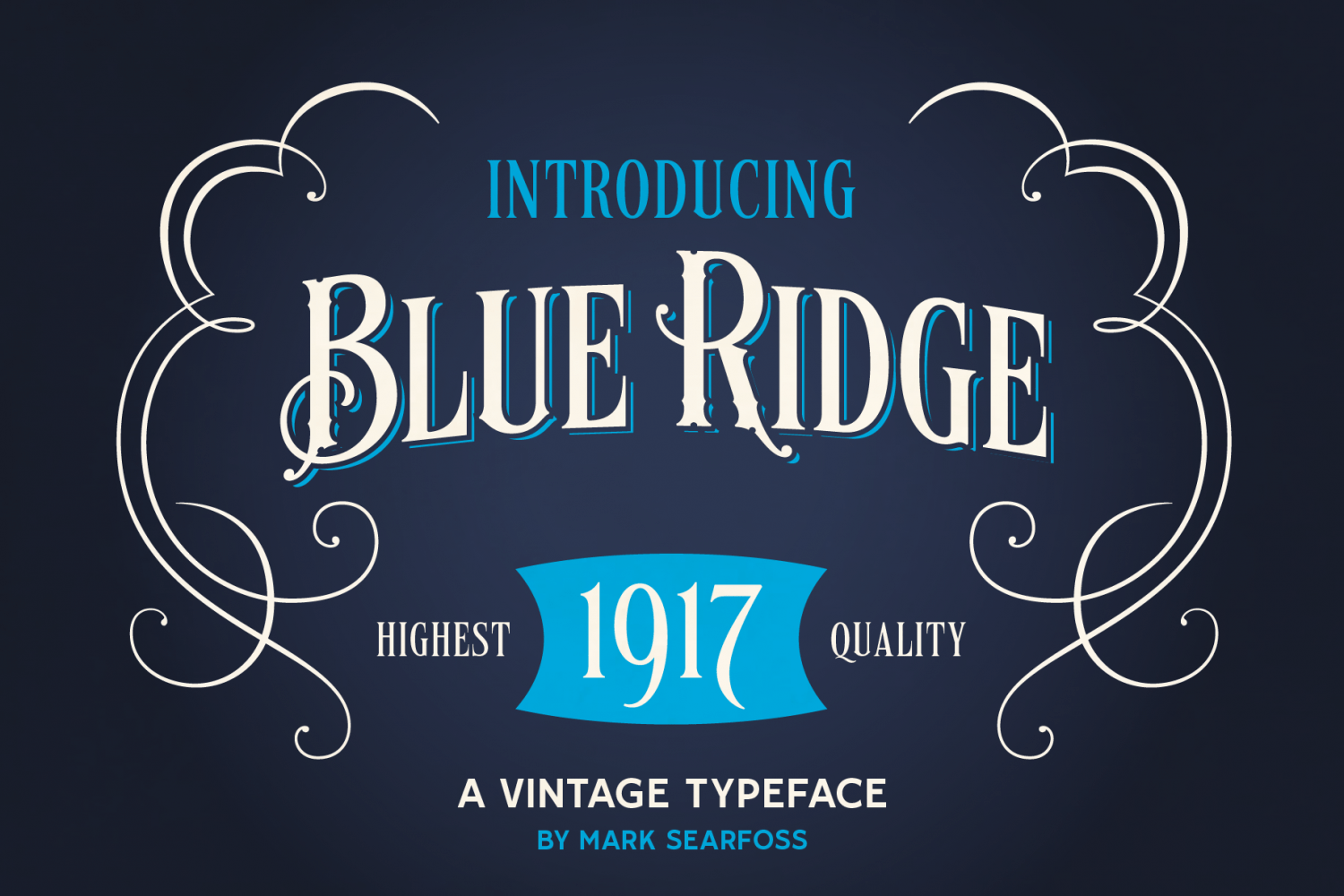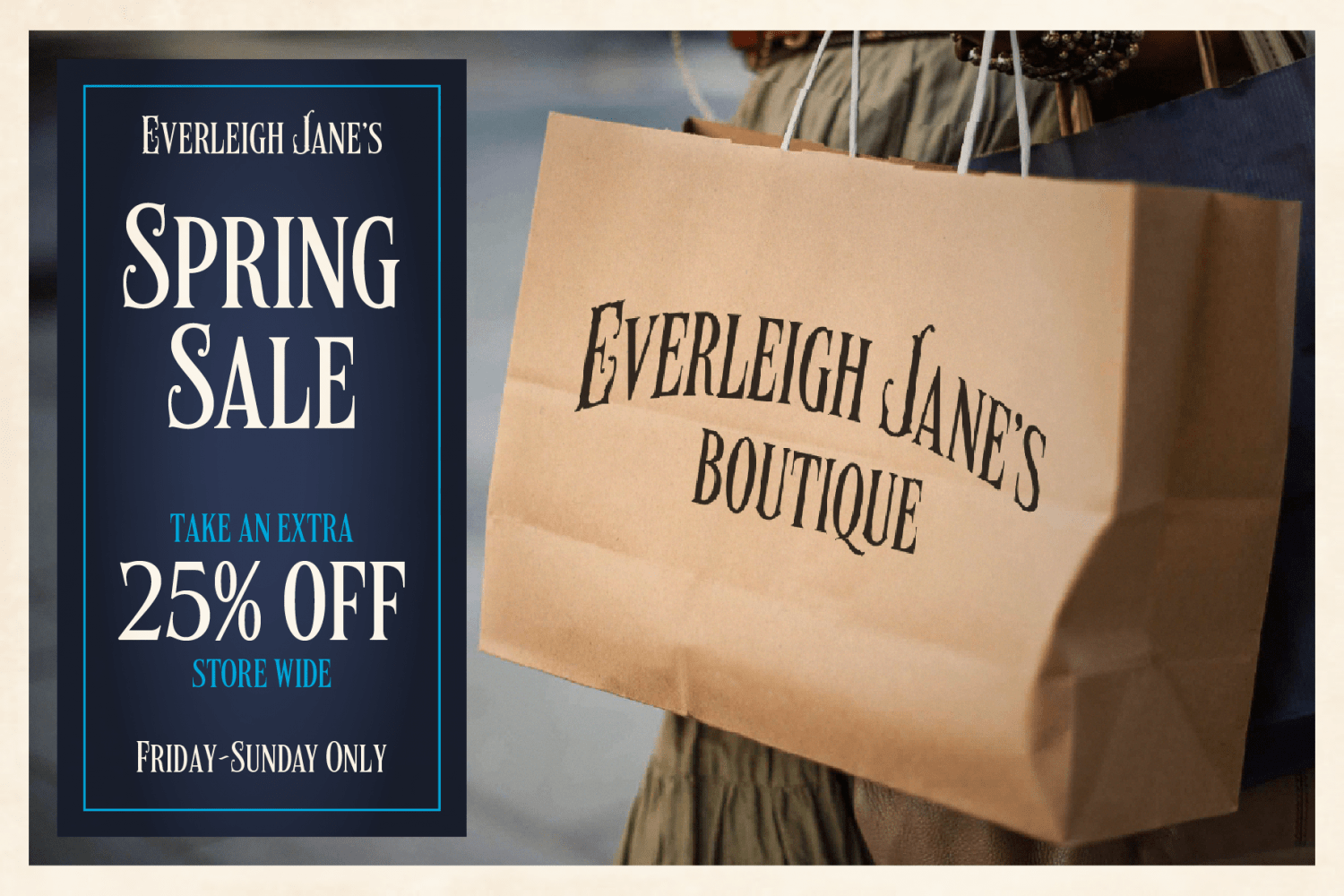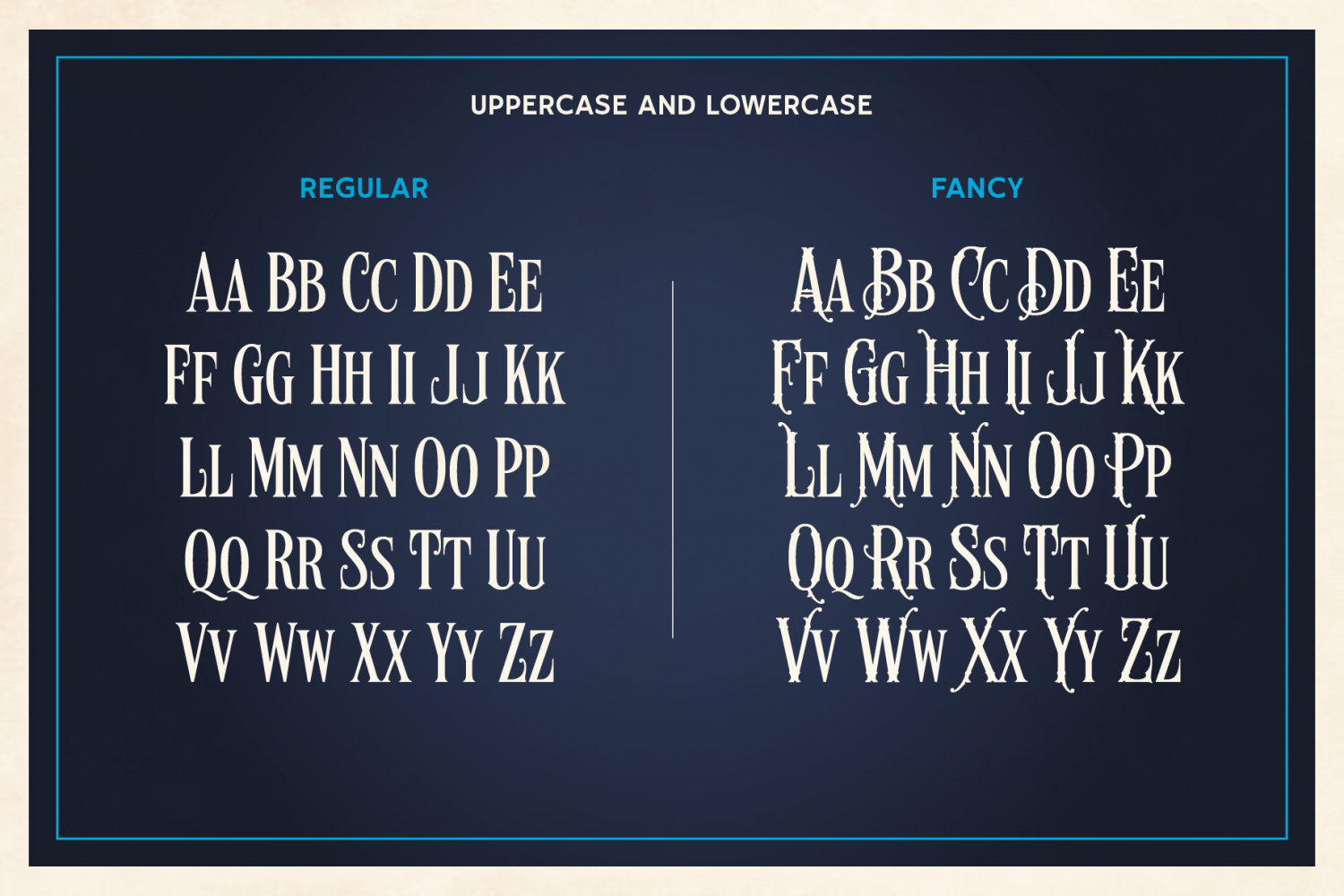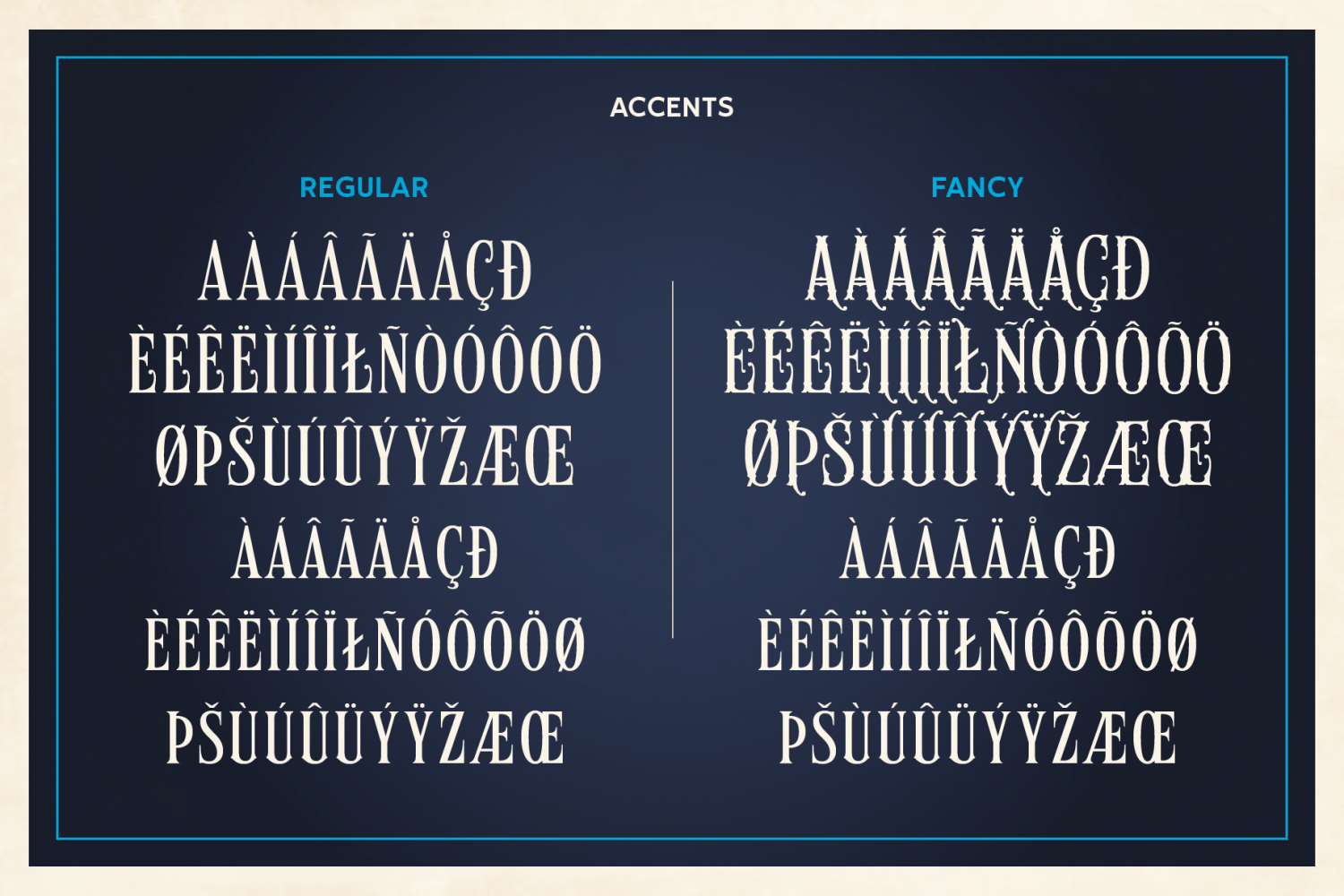
Blue Ridge
About Blue Ridge
Blue Ridge is a vintage typeface based primarily on late 1800s to early 1900s American whiskey labels. It features tall thin letters with light decoration in the capitals, while the Fancy version caps add even more decorative style. Both versions also…